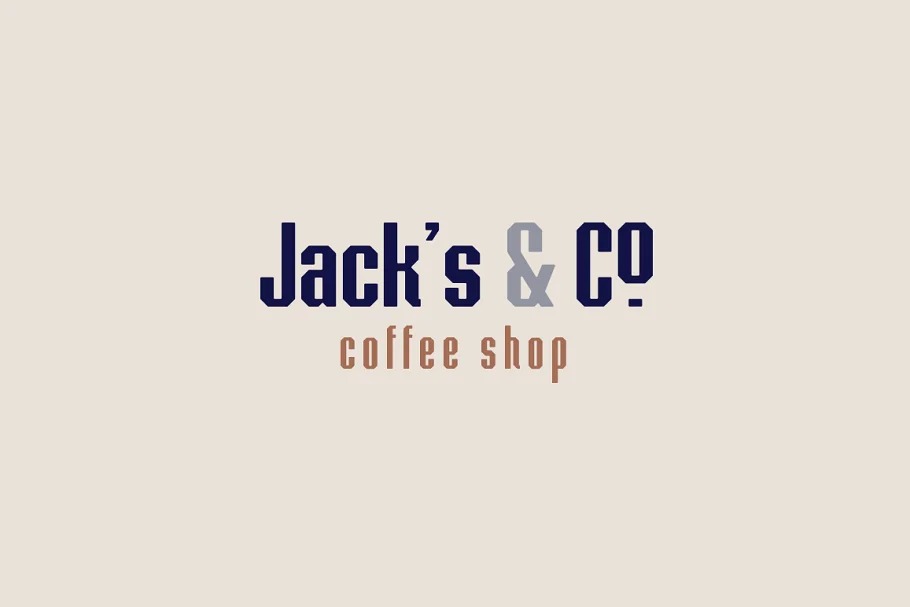
Hammerhead Typeface
Hammerhead Sans Serif Typeface
This font is a package that will surprise you. With this family you will get many options to maximize your designs with stylish fonts. Hammerhead has three weights, Hammerhead Compressed, Condensed and Regular, with simple, bold letterforms, straight lines and angled finials. Each weight has 252 glyphs, an uppercase and lowercase alphabet and extensive Latin script support. Hammerhead family provides a wide range of applications, but is best for vintage inspired logo designs, badge design or clothing design and can also be used for block text or occasional text.